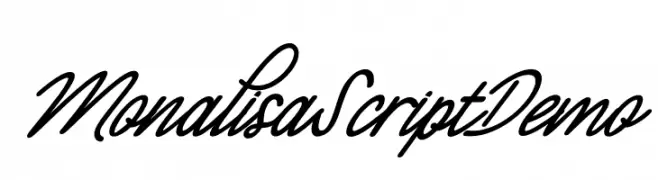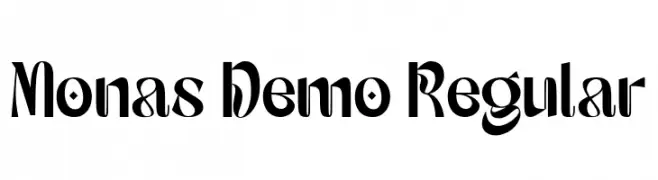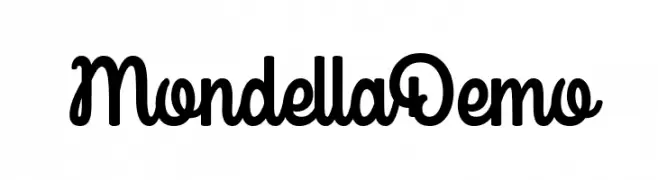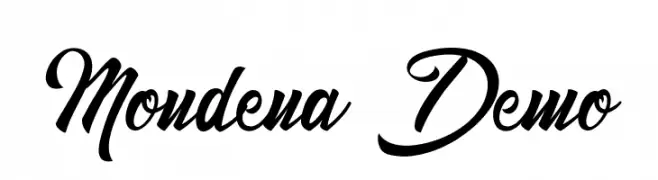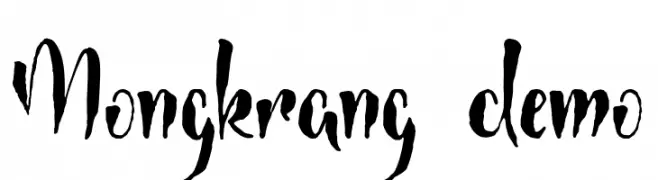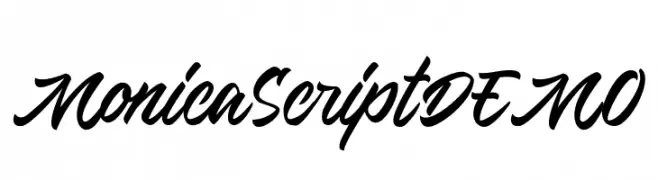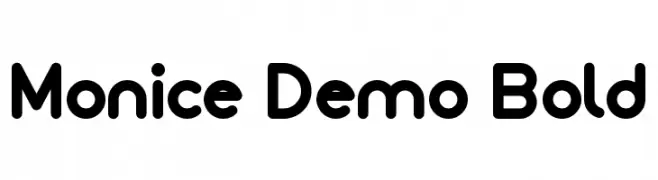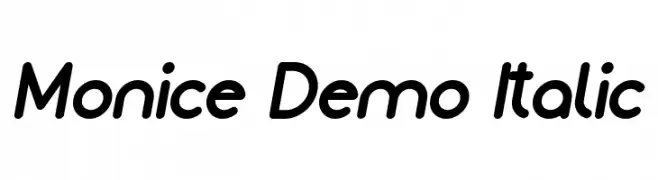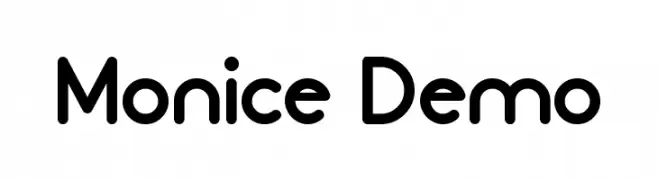
A flowing, elegant script font with interconnected characters and medium contrast.
A bold, artistic font with striking curves and sharp edges, ideal for decorative use.
A playful, bold script font with a handwritten feel.
An elegant, cursive font with flowing, artistic strokes.
A playful, hand-drawn font with bold, rounded uppercase and flowing lowercase letters.
A dynamic, brush-style font with expressive strokes and artistic flair.
A dynamic and elegant script font with high contrast and flowing letterforms.
A playful, rounded font with smooth curves and a friendly appearance.
A bold, rounded font with a modern and friendly style.
A modern, playful italic font with smooth, rounded edges.